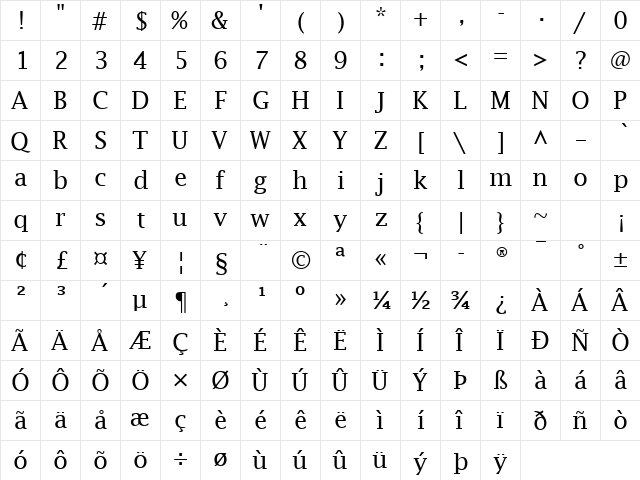
Signs Of Life 4 Regular
Signs Of Life 4 takes a measured approach to typography — its balanced proportions and neutral character make it a reliable workhorse for both digital and print work.